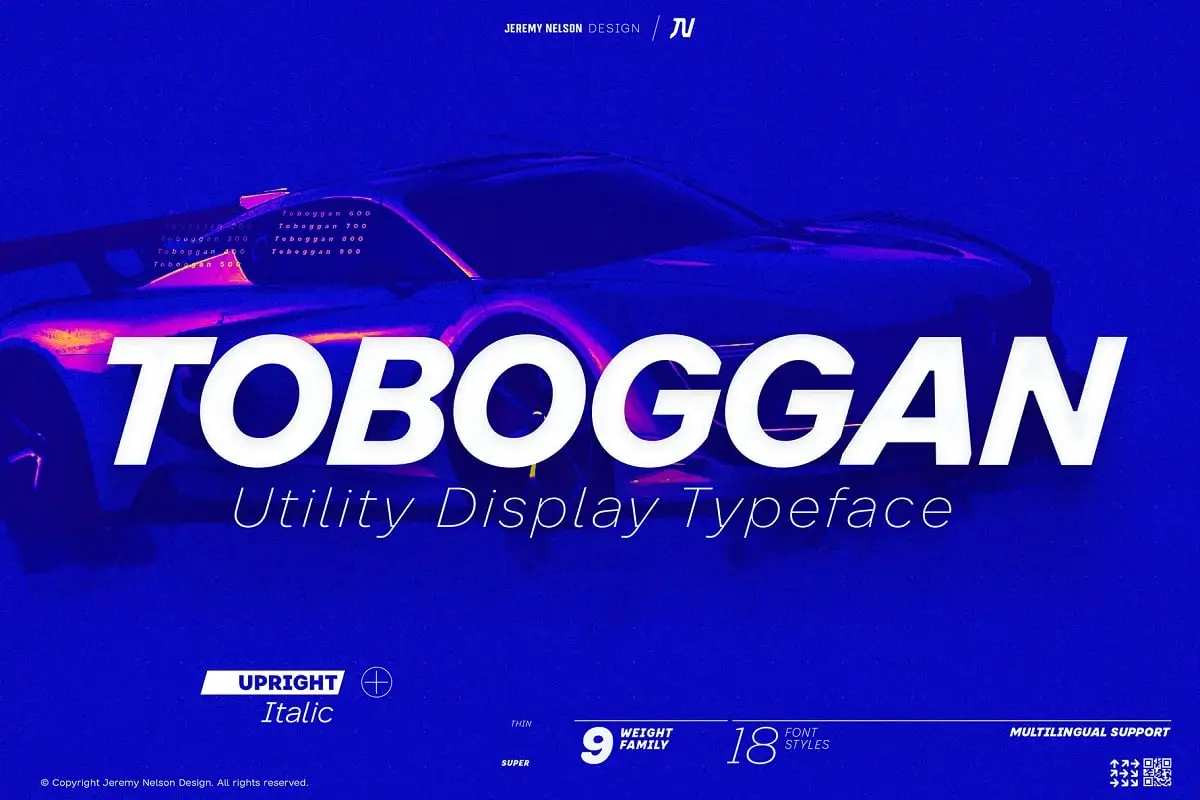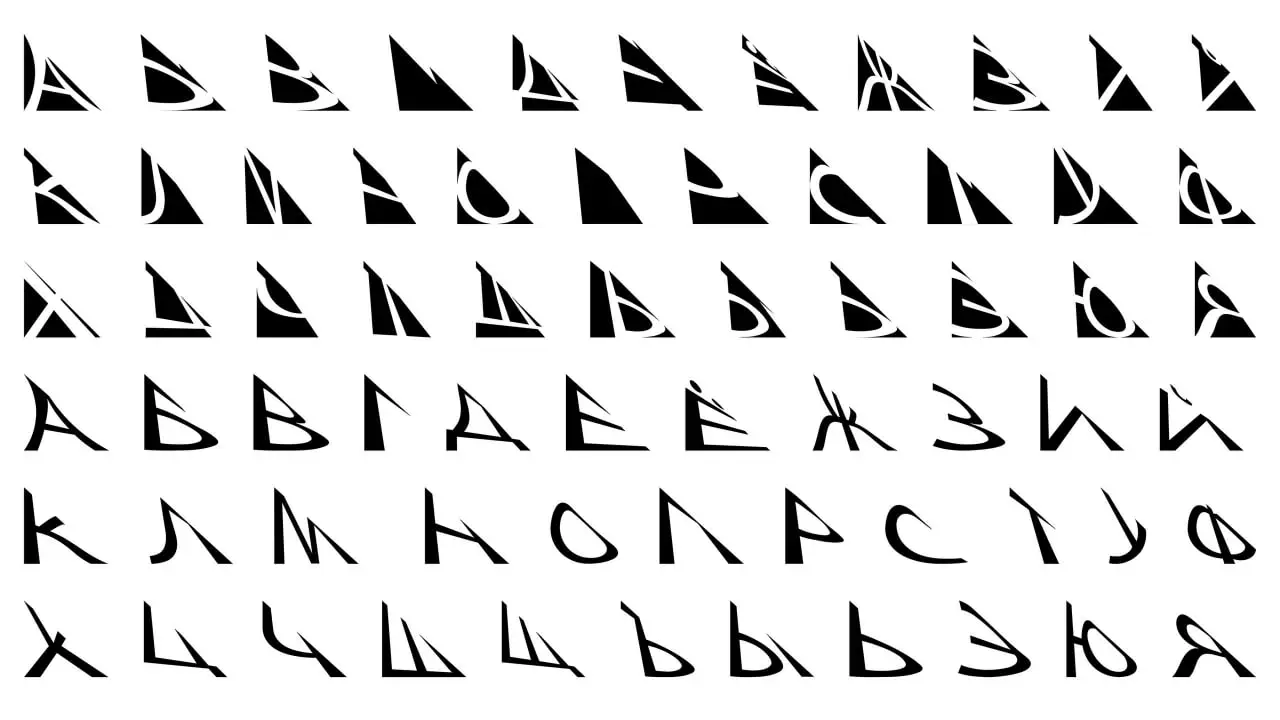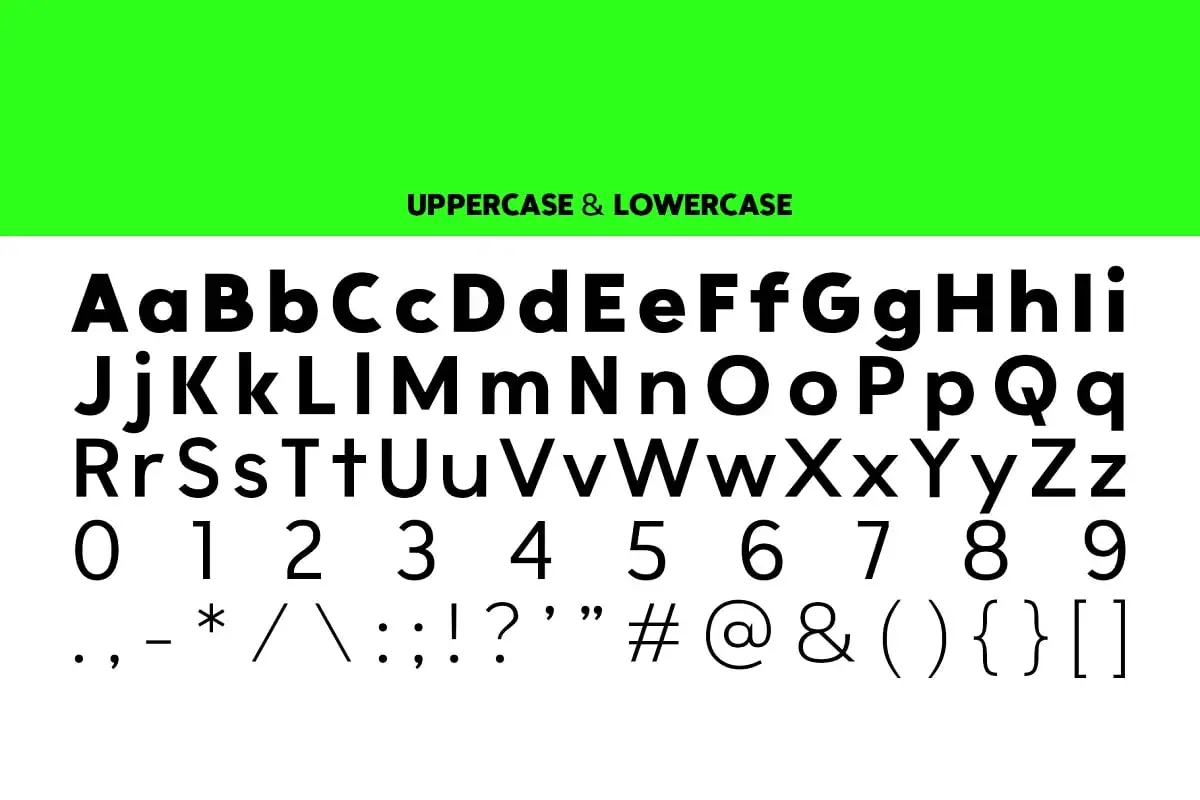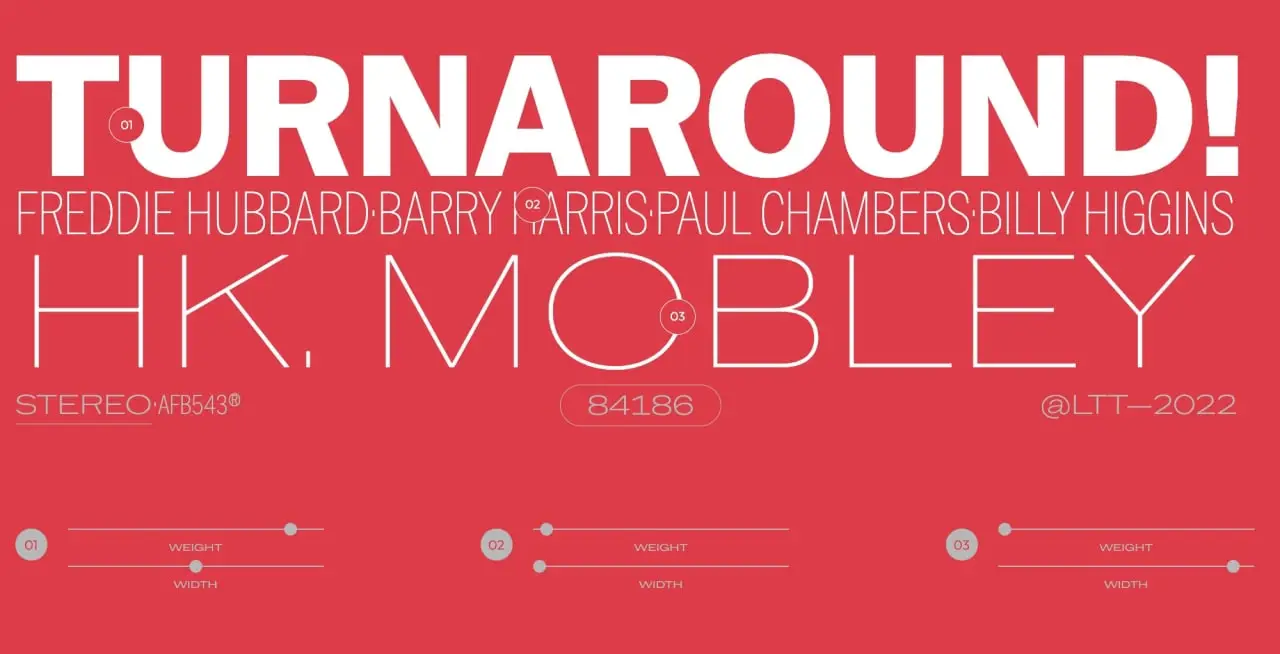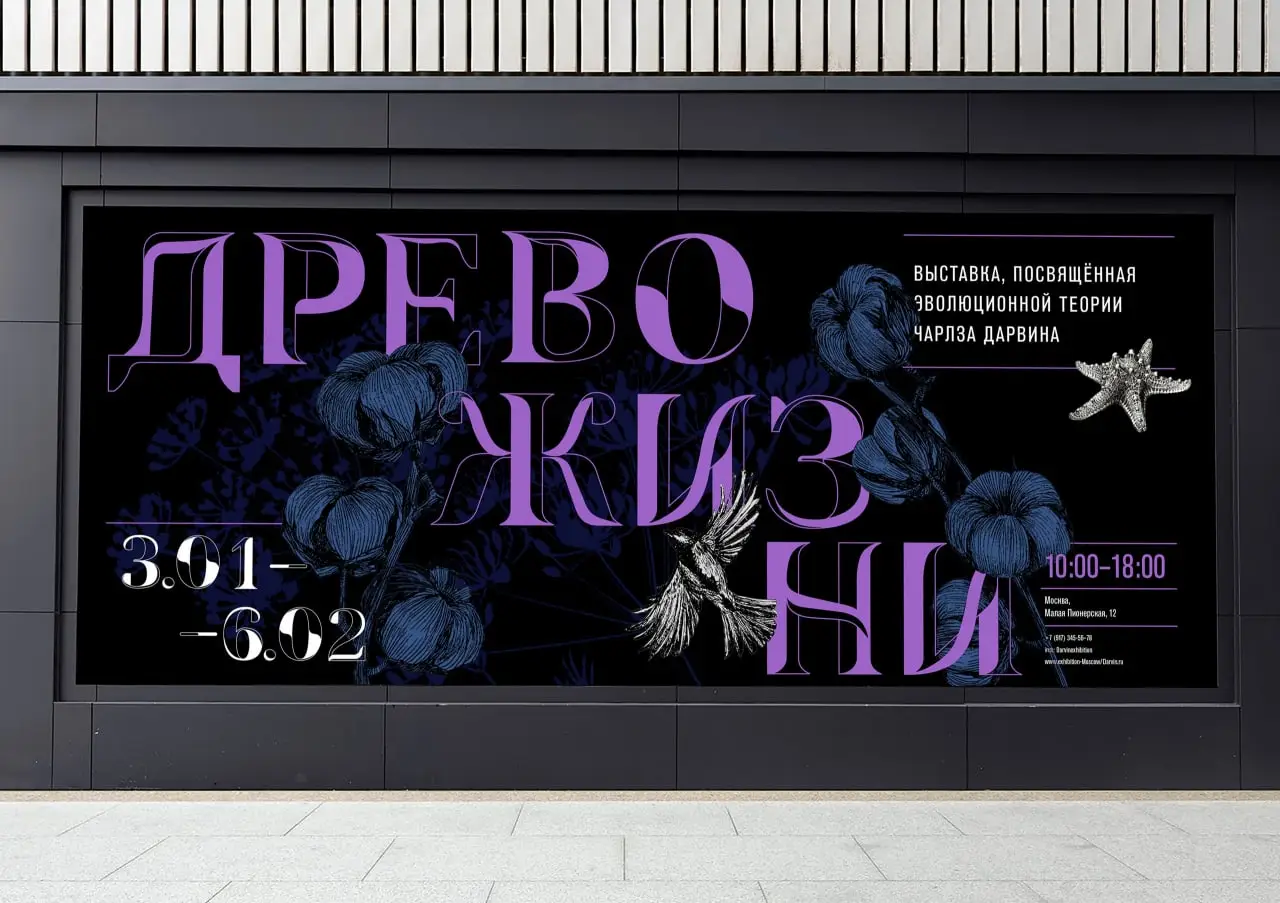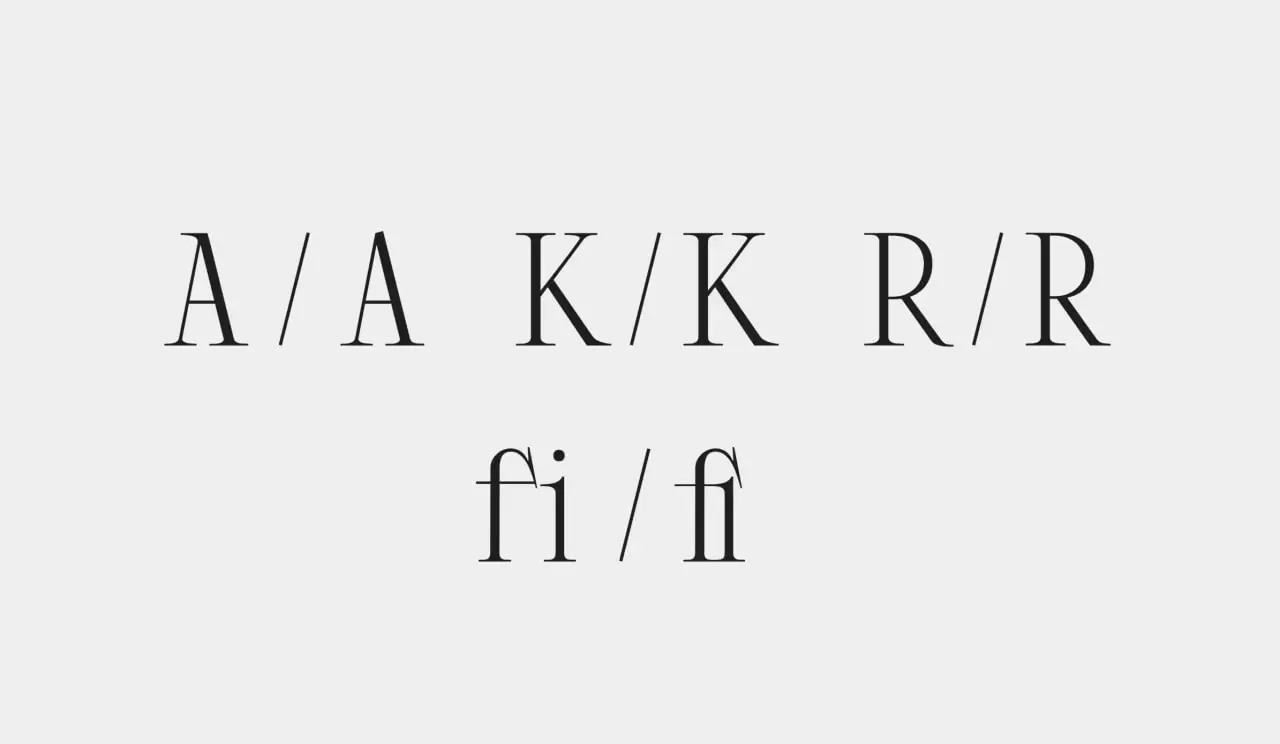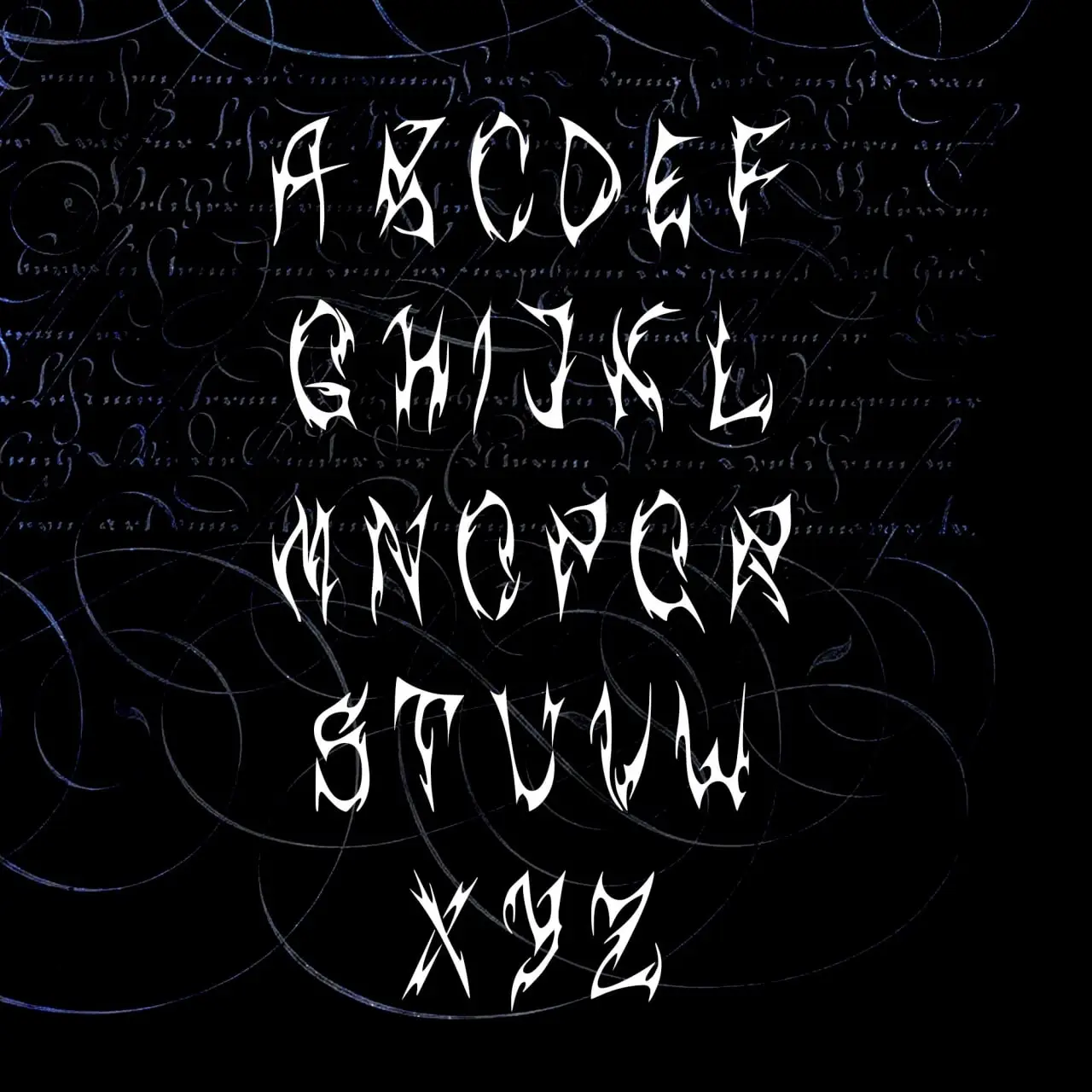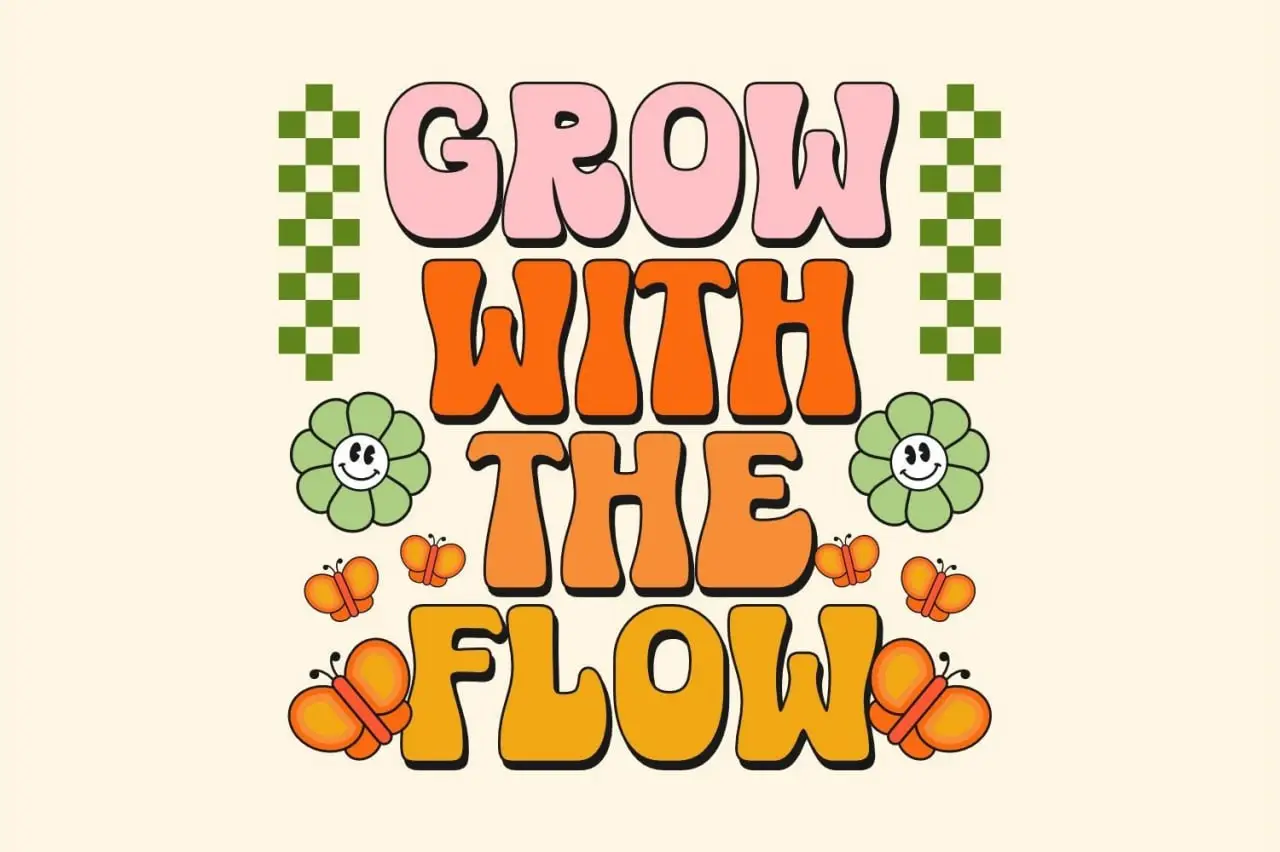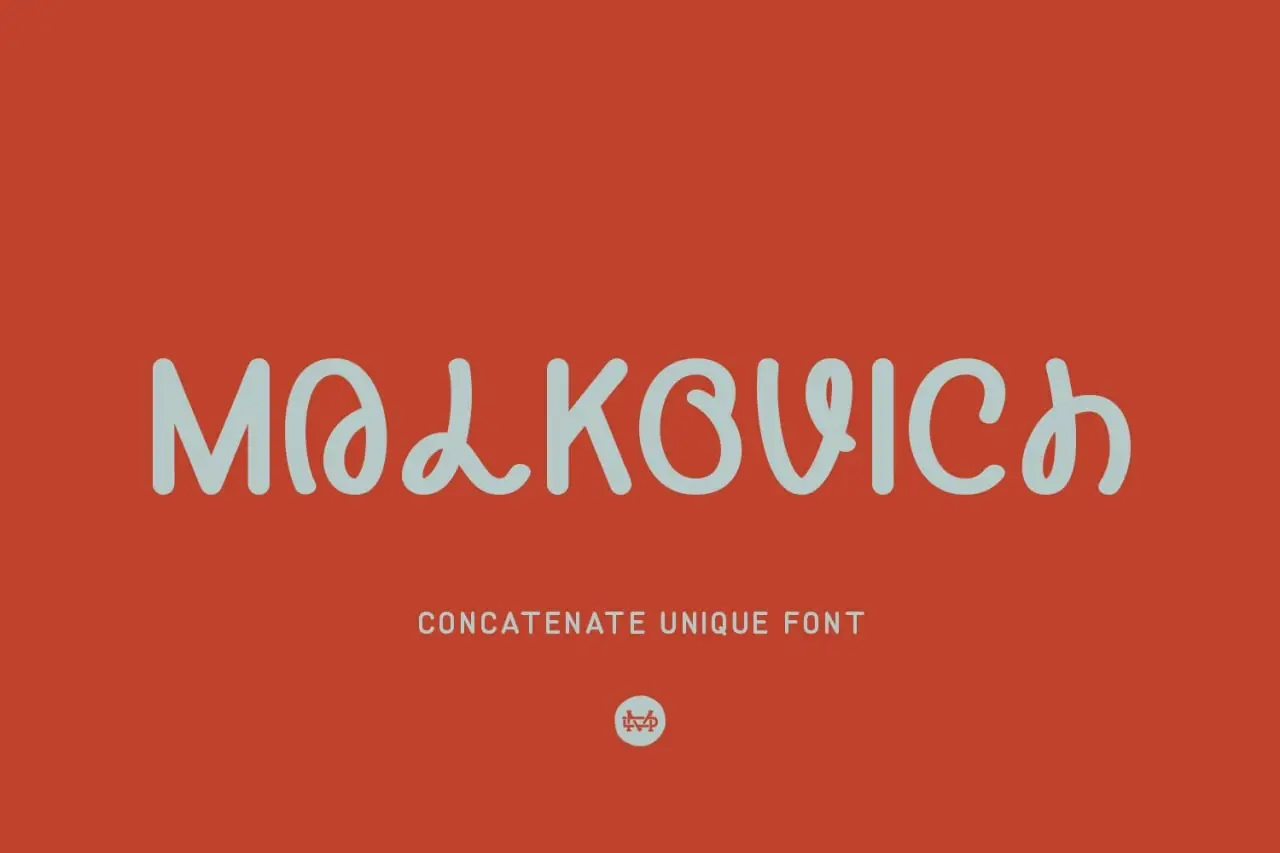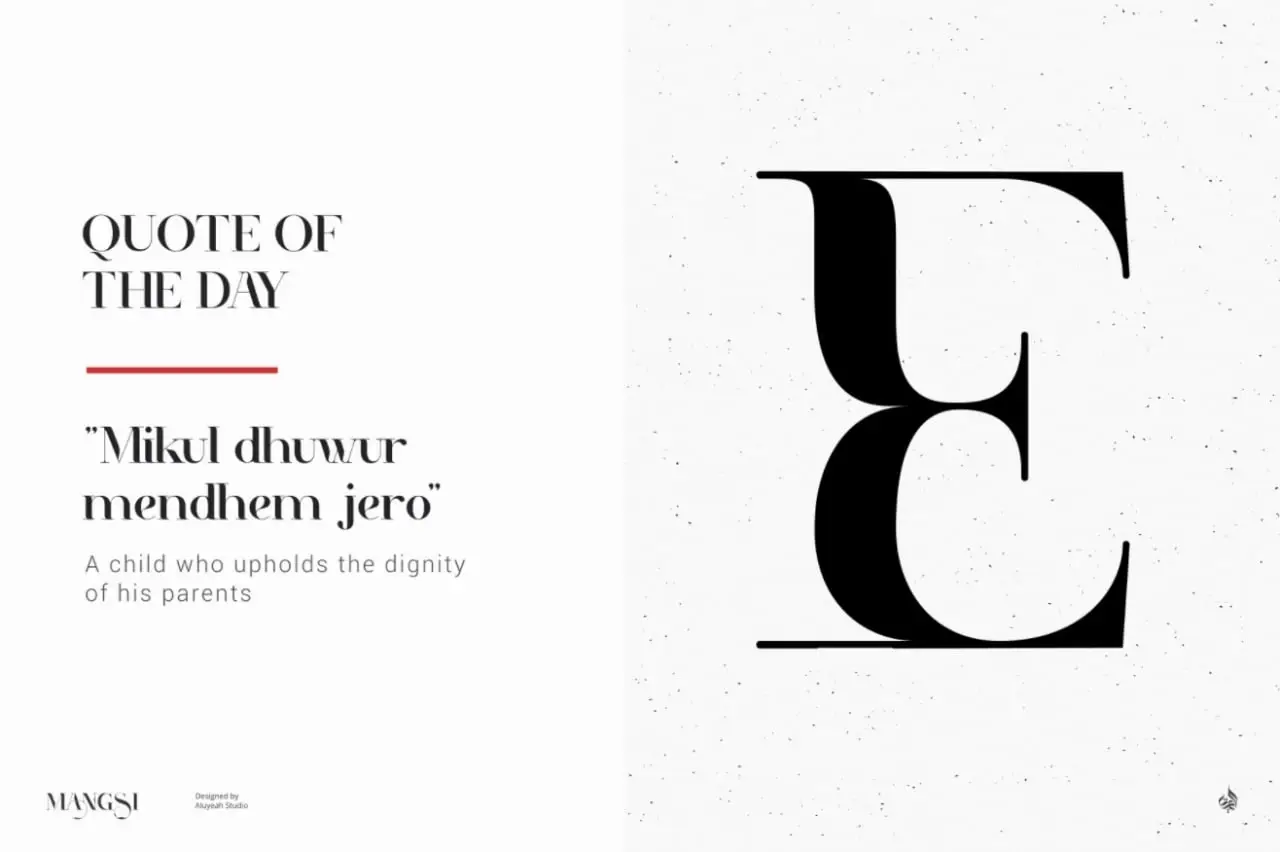
Latino Gothic By Latinotype
A beautiful blend of modern geometric shapes and timeless tradition, this typeface is perfect for branding and web design. It’s clean, it’s versatile, and it’s got multiple weights to play with! 🏆
Killua Font By Elis1Ren
A modern and stylish typeface with clean lines and a distinctive character, perfect for logos, branding, and web design. The regular and bold styles give you all the flexibility you need. ⚡
M290-Free Futuristic Display Font
Say hello to the future! 🚀 This free display font features bold lines and geometric shapes that scream innovation. Perfect for sci-fi vibes, tech branding, and any project that needs a cutting-edge look.
Jeremy Nelson Design-Toboggan Font Extended Latin
This versatile typeface comes with an extended Latin character set, making it a global superstar for multilingual projects. Whether it’s branding or print, Toboggan brings a unique, stylish flair to any canvas. 🌍
Magic Flower Font By Keithzo (7Ntypes)
Add a touch of whimsy to your next project with playful floral motifs integrated into each letterform. 🌸 It’s perfect for boho branding, wedding invites, or anything that needs a sprinkle of magic!
Laced Days Font By Typefool
Elegant curves and a stylish modern design make this font a go-to for sophisticated projects. It includes multiple weights and full character sets—ideal for headlines and logos. 🌟
Liza Kazaeva (Kravitz)-Liturgia Font
A beautifully crafted typeface that dances between elegance and modern design. With multiple weights, it’s a total workhorse for branding, logos, and print materials. ✨
Magestic.Std-Larines Font
Elegance meets versatility with smooth curves and distinct letterforms. This font is super readable at any size, making it a reliable choice for both digital and print projects. 👑
Marlino Regular By Donis Miftahudin
Clean and modern, this font is a digital dream. Available in OTF and TTF formats, it’s perfect for professional and creative applications alike. Simple, yet stunning. 💎
Kostas Bartsokas-Averta
A versatile, contemporary typeface that balances modern aesthetics with readability. Multiple weights make it a total champ for branding, web, and print. 🎯
Lithium By Yana Kolesnichenko
High-resolution graphics and versatile styles make this digital design asset a fresh addition to any creative project. It integrates seamlessly into both web and print applications. ⚡
Lifetree By Dina Gumen
Creativity and elegance grow together in this unique design asset. With customizable components and multiple formats, it’s a root system of inspiration for any project. 🌳
Mangsi Inked Display Typeface
Bold, expressive, and artistic—this inked style typeface is a total statement maker. Perfect for posters, merch, or any project that needs to stand out from the crowd. 🖊️
Inumocca Type-Folkloric
This one captures the essence of folkloric artistry with intricate, decorative letterforms. It’s charming, traditionally rooted, and perfect for adding a cultural twist to modern designs. 🧵
Lezo Font Cyrillic
Specifically designed for Cyrillic scripts, this font combines modern aesthetics with top-notch readability. It supports multiple weights and is incredibly clear in both print and digital. 📜
Lifeform Typeface By Supremat
Modern, clean, and utterly distinctive—this typeface is a rockstar for branding and logos. With multiple styles and weights, it’s high-legibility across both digital and print. 🛸
Journal Wow
Transform your journaling game! 📓 This versatile collection comes with high-quality templates and customizable layouts designed to make every page pop with personality.
Katide — By Drizy
A super versatile digital design asset that’s easy to customize and adapt. Whether it’s for web or print, these unique elements will make your project shine. 💡
Margot Lévêque-Romie
Add a touch of elegance to branding, marketing, or web design with this beautiful digital asset. It’s easy to customize and works flawlessly in both digital and print media. 🌹
Malkovich By Madededuk